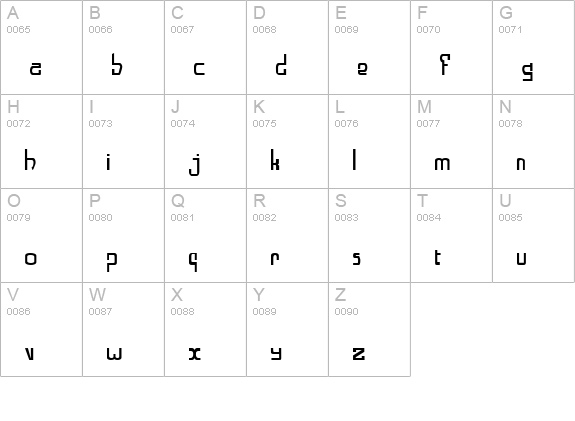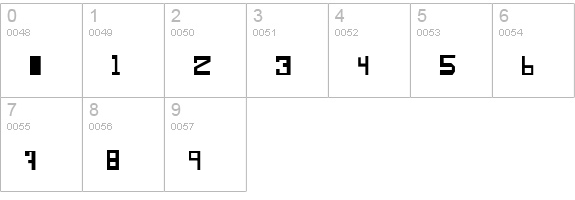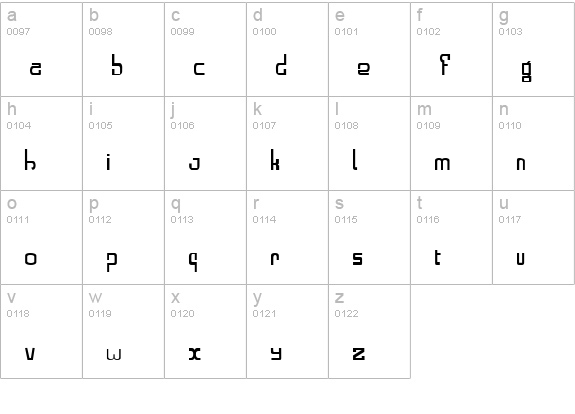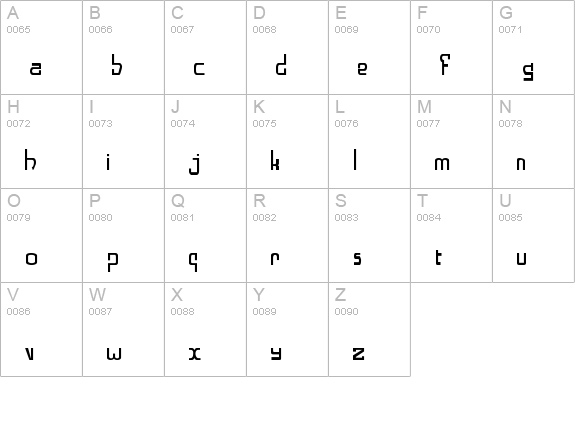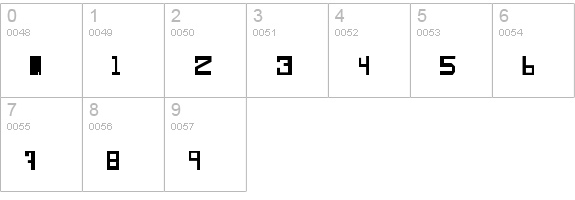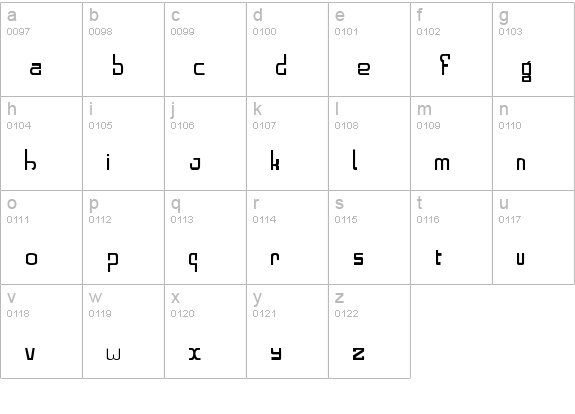
Alphabeta Font Details
Alphabeta font is a modern and stylish typeface that exudes elegance and sophistication. Its sleek lines and contemporary design make it perfect for a wide range of projects, from branding to editorial design. The versatility of Alphabeta font allows it to be used in both print and digital applications with ease. What sets Alphabeta font apart is not only its visual appeal but also its accessibility. This premium font is available for free download at FontsMarket.com, making it a valuable addition to any designer's toolkit without breaking the bank. Whether you're working on a personal project or a client's campaign, Alphabeta font is sure to elevate your design and leave a lasting impression.